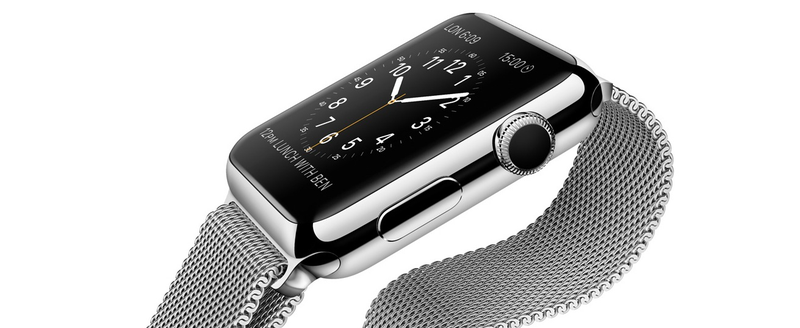
Apple Debuted a Brand-New Custom Typeface With Its Watch
Something I was watching closely as the Apple Watch was revealed today: Which typeface would grace this shiny, tiny new device? Well, it’s not Helvetica, the troublesome font that Apple recently adopted for its iOS and OS applications. It’s a brand-new typeface that was designed for excellent readability—by Apple.
There are not too many specific details from the company yet—and there may never be—but Apple did admit the font is itsown creation: “We even developed a new typeface to maximize legibility.”
What to make of this big step for Apple’s user interface team? And what to call it? Is it Apple Sans, the typeface that has been rumored-to-be-in-development for years? Probably not—this is likely a brand-new typeface made just for the Watch’s specific needs. And that is good news.
When Apple rolled out its flat-designed Yosemite, designers took the company to task for using Helvetica, which is well-known for being problematic at a small scale. In designing the interface of the Apple Watch, there’s no way that the whisper-thin Helvetica could have performed at that size. Apple designers definitely knew this when embarking upon the project. This new typeface not only features extremely distinctive letters, it looks as if it was designed to be comprehended quickly—whether you’re looking at your running time while on the move or glancing down to check an incoming message.
It reminds me of when the iPod was released, and Apple needed a hardworking typeface that would reproduce well on the low-res black-and-white screen. That time, the company looked back through its own type archives for a winning, readable solution. Susan Kare’s Chicago was resurrected from its appearance on the very first Mac, and proved to be a smart decision. This seems to be a move that’s in the same vein: Going in-house to create something customized, just for Apple. It’s something that used to be done more often in-house, before a decade of choosing off-the-shelf type.
Whatever we’ll call this typeface, it prizes performance over looks. And this is a sign that Apple is finally devoting more attention to user interface design. Helvetica would have been pretty—and would have matched the iPhone 6!—but we would all have been squinting at our wrists. This font works much better for any screen size. In fact, I’m hoping this new Watch-face will soon be rolling out across more of Apple’s products.